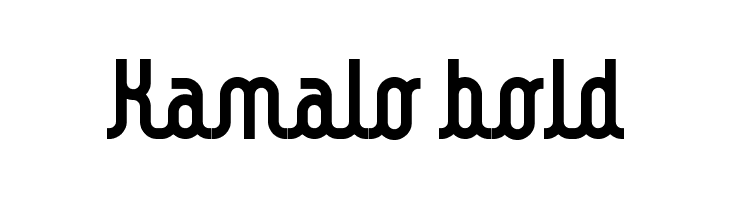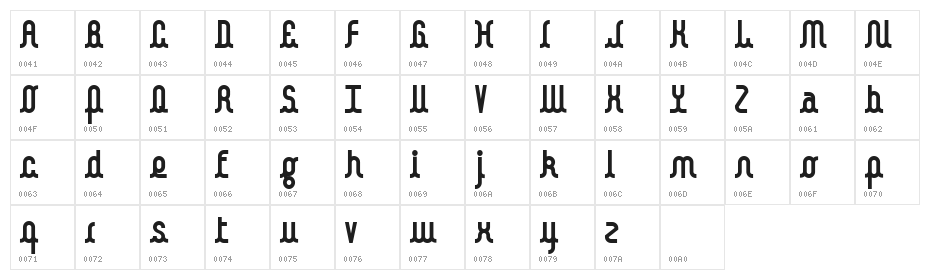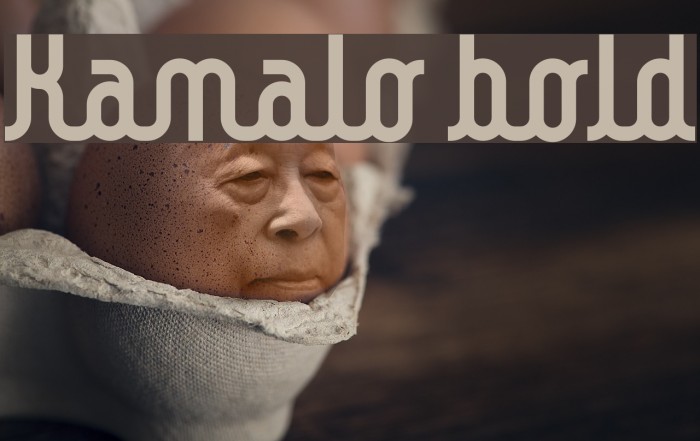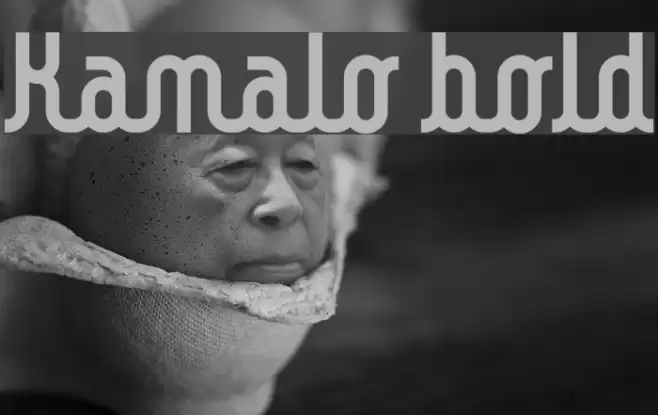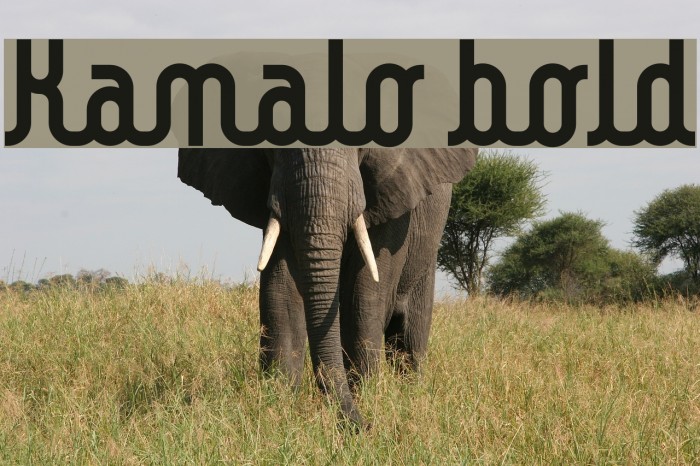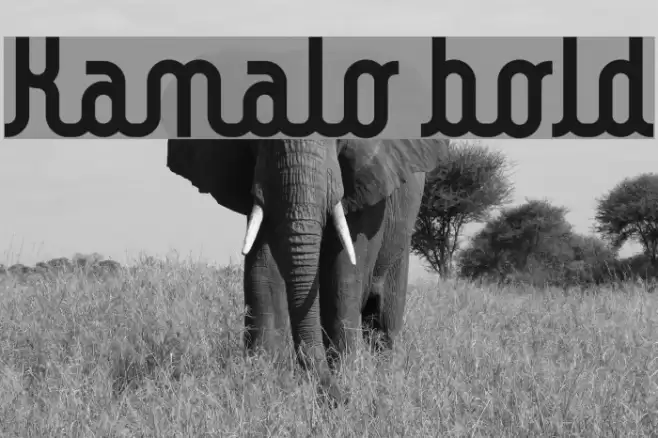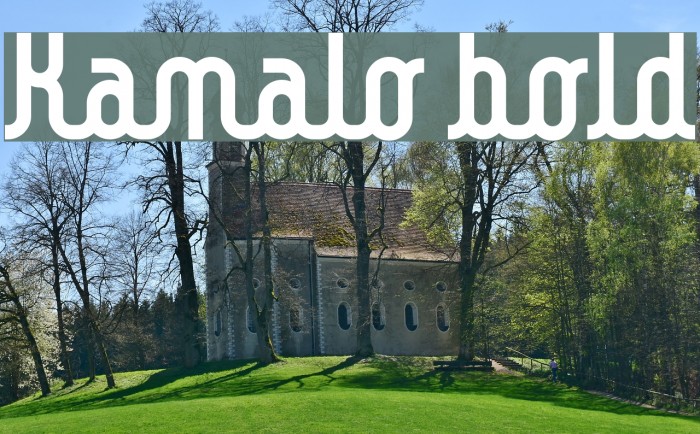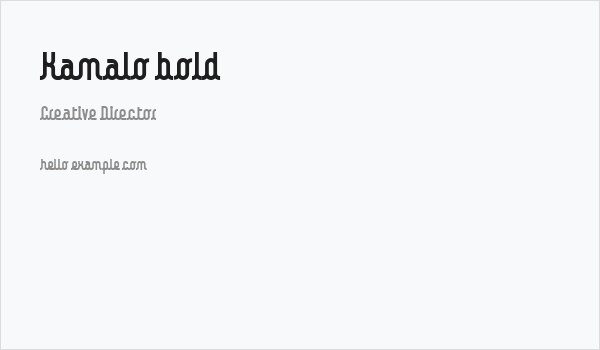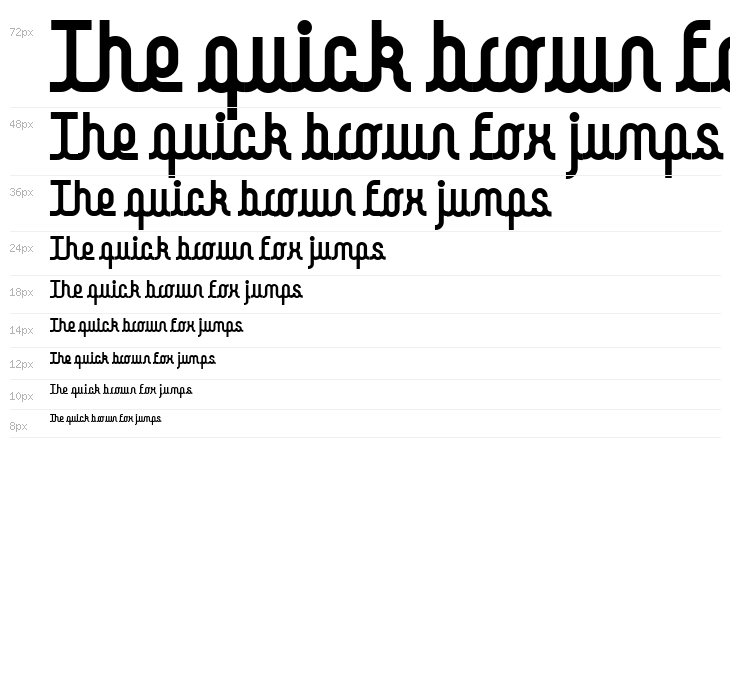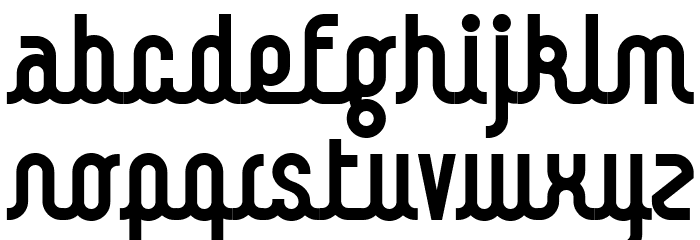
Kamalo bold Font
Kamalo bold Description
This font features a unique and bold design with a modern twist. The characters are interconnected with a continuous line that creates a flowing and cohesive look. The uppercase and lowercase letters share a similar structure, emphasizing the font's uniformity. The rounded edges and consistent stroke width give it a playful yet structured appearance. The font's design is both eye-catching and versatile, making it suitable for a variety of creative projects. Its boldness ensures readability while maintaining a distinct style that stands out.
| Proposed Projects | Ideal for branding, poster design, headlines, and creative projects that require a distinctive and modern look. |